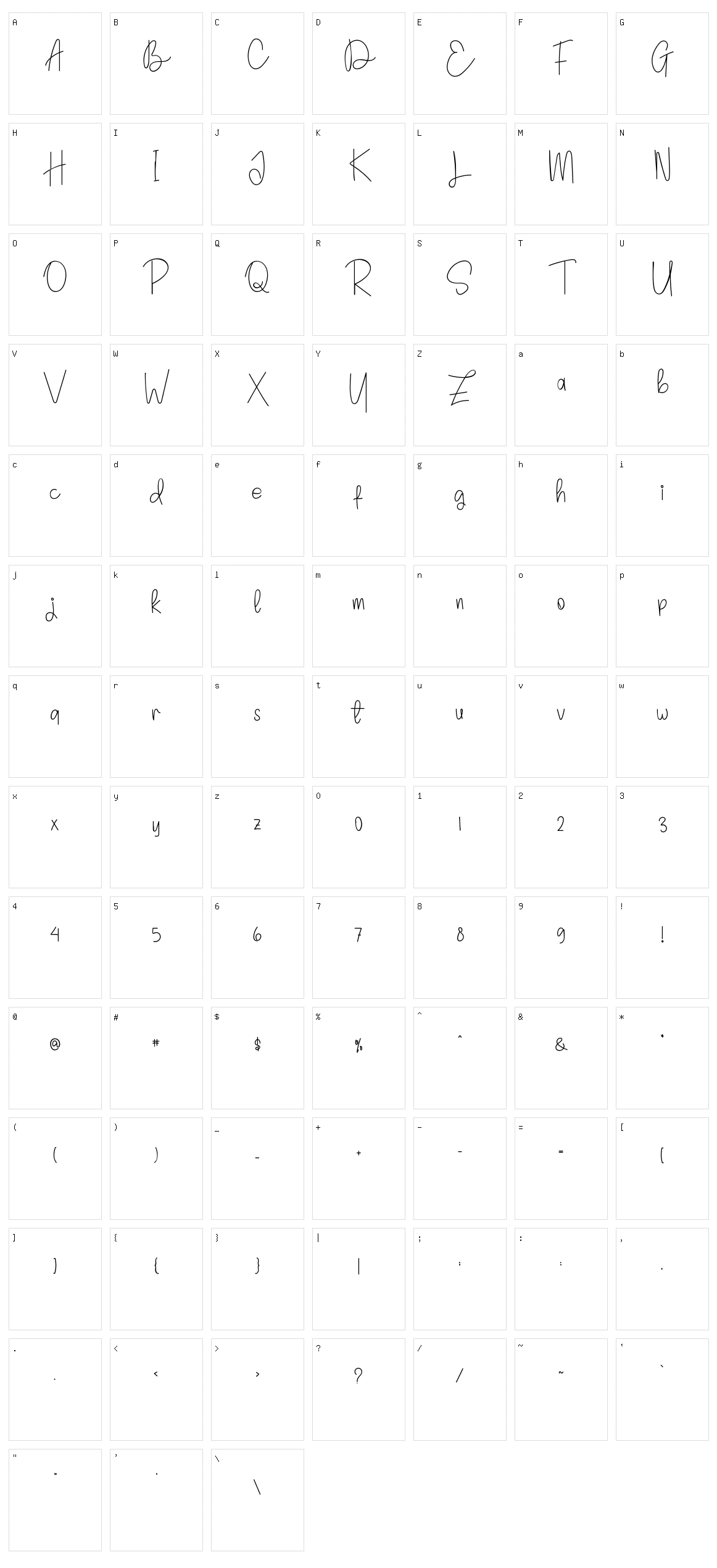
The free font Chocolate Spaghetti is carefully designed by Inermedia Studio, showcasing a thoughtful balance of creativity and usability and falls under the Script font style. When you download the ZIP file, it contains only 67.1 KB of font files, making it lightweight and quick to download. Please review the license details below to understand permitted usage and distribution rights. If license information is not available, we recommend using this font for personal projects only or contacting the author directly for commercial usage permissions.